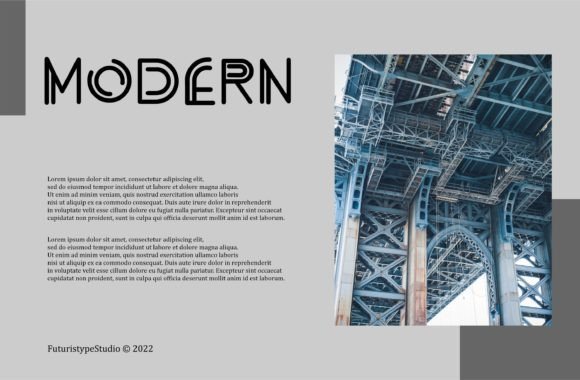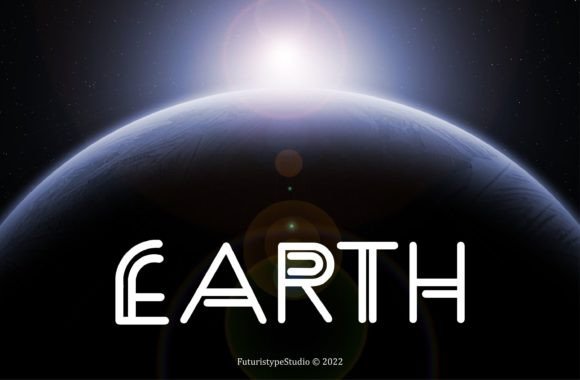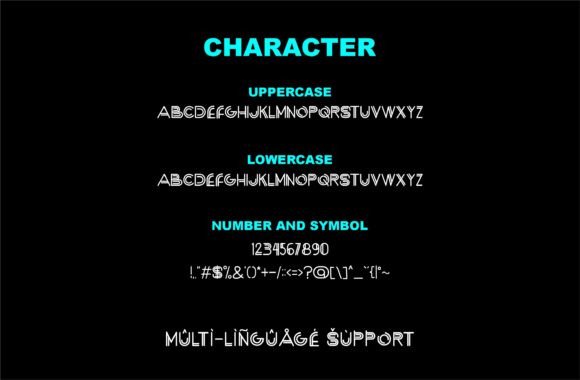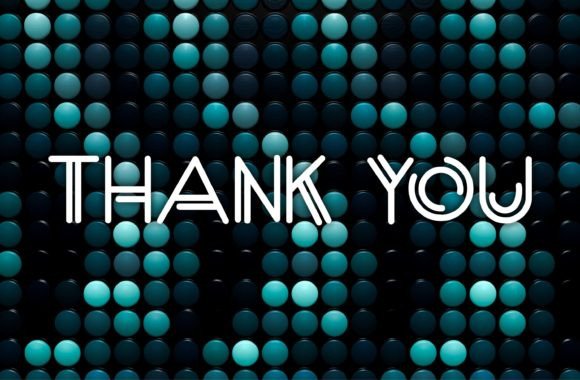
Introduction to Monter Font Font
Fonts play a crucial role in design, and the Monter Font font is a typeface that brings both character and versatility to any project. Whether you’re working on a branding project, a website, or a print design, the Monter Font font offers a unique style that can elevate your work.
MONTER is a cool and futuristic display font.
This modern and bold vibe can easily be applied to your modern projects .
Key Features of Monter Font Font
Why Choose Monter Font Font?
The Monter Font font is more than just a typeface – it’s a design tool that helps you communicate your message with style and clarity. Its unique character set and versatile design make it suitable for a wide range of applications, from elegant invitations to bold headlines.
With its carefully crafted letterforms and balanced proportions, the Monter Font font ensures readability and visual appeal across all mediums.
What makes Monter Font font special?
The Monter Font font stands out with its unique design, exceptional readability, and versatility across various design applications.